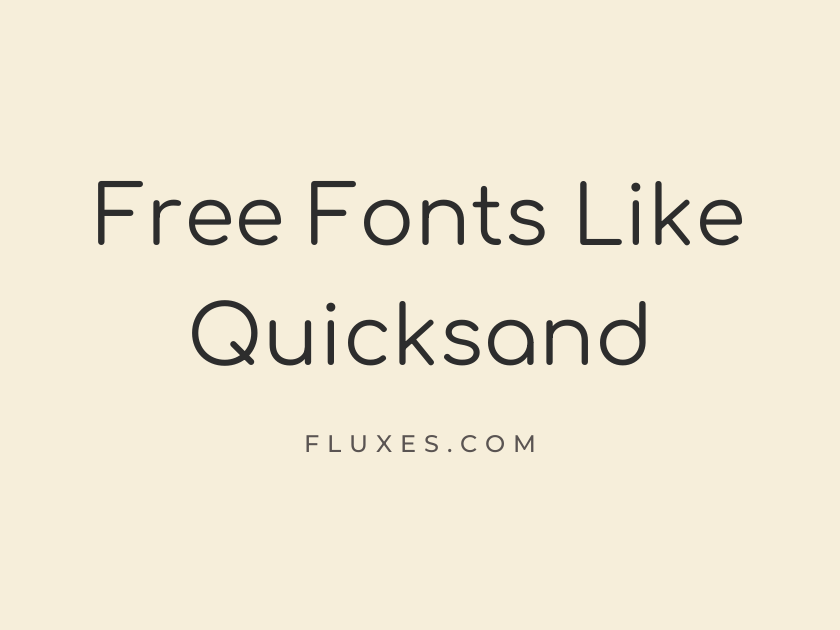
14 Best Free Fonts Similar to Quicksand
Quicksand has become a go-to choice for brands that want a geometric sans with a soft, approachable edge, the kind of rounded terminals that make headlines feel friendly rather than corporate. If you have used it on a few too many projects, or you are searching for free fonts similar to Quicksand for a fresh logo, app interface, or landing page, there is a good crop of Google Fonts that share its geometric bones or its rounded warmth. Some lean closer to the display side, built for big confident headlines, while others are calmer workhorses suited to body copy and UI labels.
1. Comfortaa
Friendly rounded shapes for a modern brand
Comfortaa is probably the single closest cousin to Quicksand on Google Fonts, sharing that geometric circle-based construction and soft, rounded stroke ends. It reads as a little more compact and bubbly, which makes it a strong pick for logotypes, app icons, and short punchy headlines rather than long paragraphs. Pair it with a plain-spoken sans like Nunito for body text and you get a clean, contemporary system.
2. Baloo 2
Bold rounded headlines that feel welcoming
Baloo 2 brings more visual weight to the rounded genre, with chunky strokes that hold up beautifully at poster size or in app splash screens. It has real personality without tipping into novelty territory, which is why it shows up often in children’s brands, food packaging, and playful startup identities.
3. Nunito
Soft, easy-to-read text for everyday interfaces
Nunito trades Quicksand’s geometric display flair for something quieter and more legible in long form. Its rounded terminals are subtle enough that paragraphs stay comfortable to read on screen, making it one of the better choices when you need a rounded sans that still performs as reliable body text rather than just a headline face.
4. Varela Round
Smooth rounded letters, calm and confident
There is an evenness to Varela Round that makes it feel unusually settled for a rounded sans; strokes are consistent in weight with no dramatic contrast, so it stays legible even in smaller UI labels and buttons. It only ships in one weight, so treat it as a dependable utility font rather than a full type system.
5. Fredoka
Playful branding with a rounded bounce
Fredoka has grown up nicely since its early single-weight days; the current family spans from light text weights to a chunky, cartoonish bold that feels right at home in kids’ apps, playful SaaS products, or festival branding. It carries more bounce and personality than Quicksand, so it suits projects that want to feel a bit more energetic and less restrained.
6. M PLUS Rounded 1c
Clean rounded type for global products
M PLUS Rounded 1c
Originally developed for Japanese typesetting, M PLUS Rounded 1c pairs full Latin support with a soft, engineered rounded look that works well in dashboards, wayfinding, and multilingual products. It has a slightly more technical, precise feel than Quicksand, which makes it a good option when you want rounded warmth without losing crispness at small sizes.
7. Grandstander
Wobbly rounded charm for lively headlines
Grandstander
Grandstander is a variable font with a loose, slightly wobbly geometry that gives headlines a hand-tuned, contemporary feel rather than a rigid grid look. It shines in editorial headers, event posters, and social graphics where a bit of visual movement is welcome; save it for display sizes since detail gets lost when set too small.
8. Mali
Casual rounded warmth for friendly notes
Mali
Mali started life as a handwriting-influenced font and it shows in the gentle irregularity of its curves, giving it a more personal, handwritten warmth than Quicksand’s tidy geometry. It works nicely for greeting cards, casual blogs, or any brand voice that wants to feel approachable and a little informal.
9. Kodchasan
Geometric loops for clean modern branding
Kodchasan
Kodchasan pairs Thai script support with a rounded Latin companion built on simple geometric loops, similar in spirit to Quicksand’s circular letterforms. It sits well in interfaces and headers aimed at a Southeast Asian audience without sacrificing a clean, international look.
10. Balsamiq Sans
Friendly sketch-style type for wireframes
Balsamiq Sans
Built originally for wireframing tools, Balsamiq Sans has a deliberately casual, sketch-like rounded look that signals “prototype” or “playful product” rather than polished final branding. It is a fun choice for onboarding illustrations or comic-style callouts, though it is not the font to reach for on a formal homepage.
11. Chewy
Bold cartoon lettering for playful headers
Chewy pushes rounded type into full cartoon territory, with thick bubbly strokes that practically beg to sit next to an illustrated mascot. Use it sparingly and only at display sizes; it is built for a handful of punchy words, not paragraphs.
Quicksand earned its popularity by making geometric type feel approachable, and the fonts above each take that idea in a slightly different direction, whether that means more warmth, more playfulness, or more polish. Trying a handful in an actual mockup is the fastest way to find which rounded or geometric sans best matches your brand’s voice.